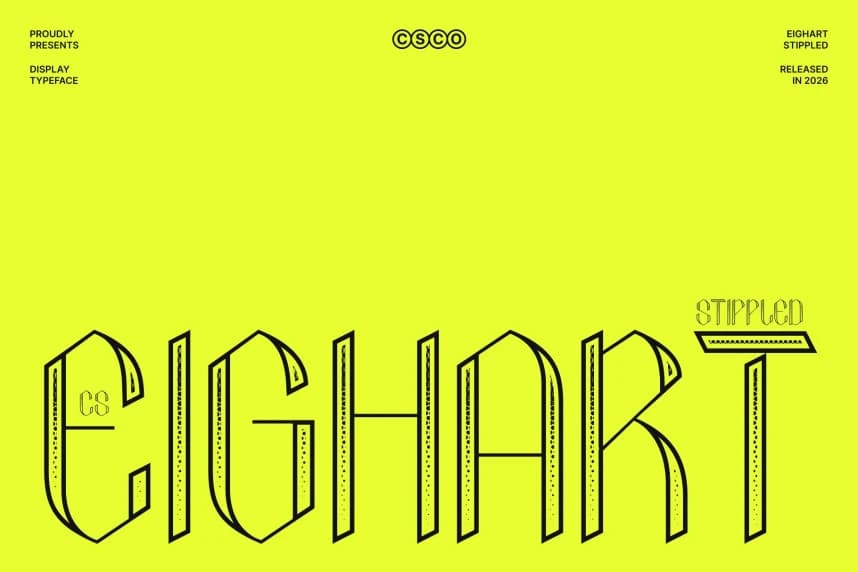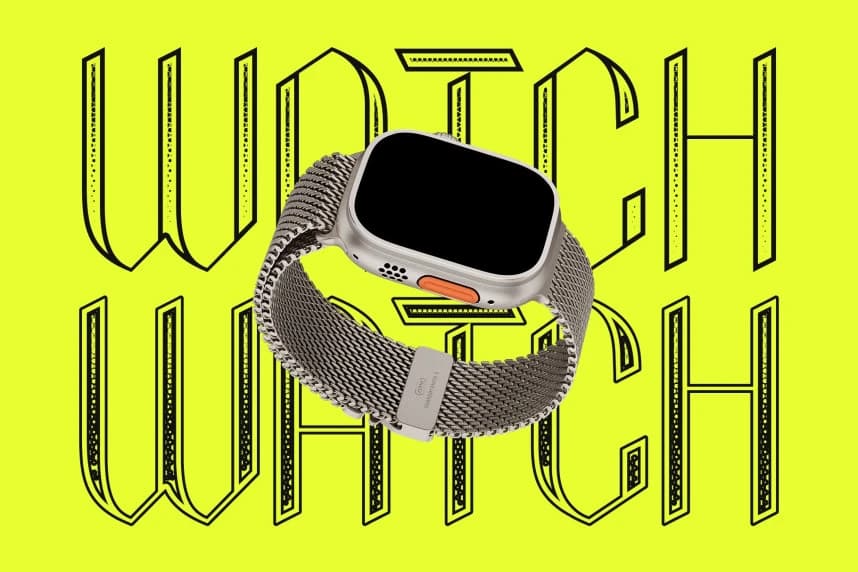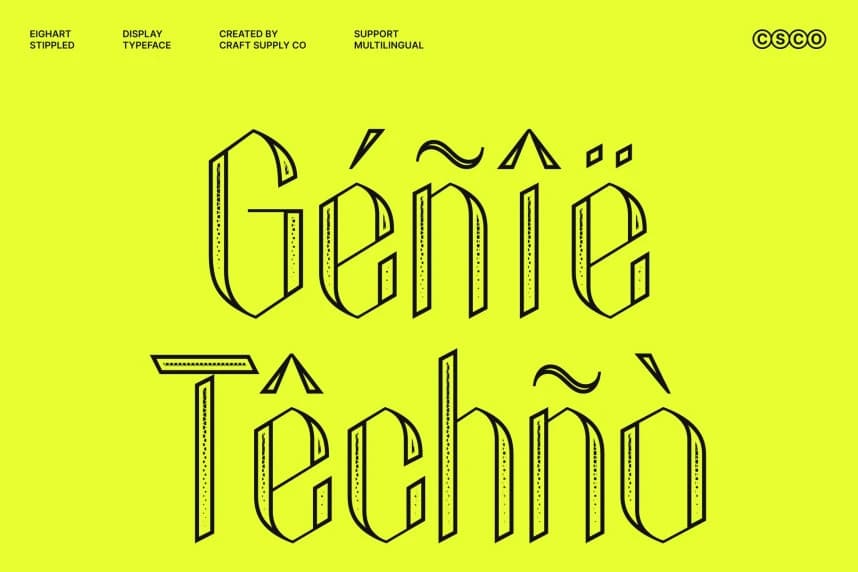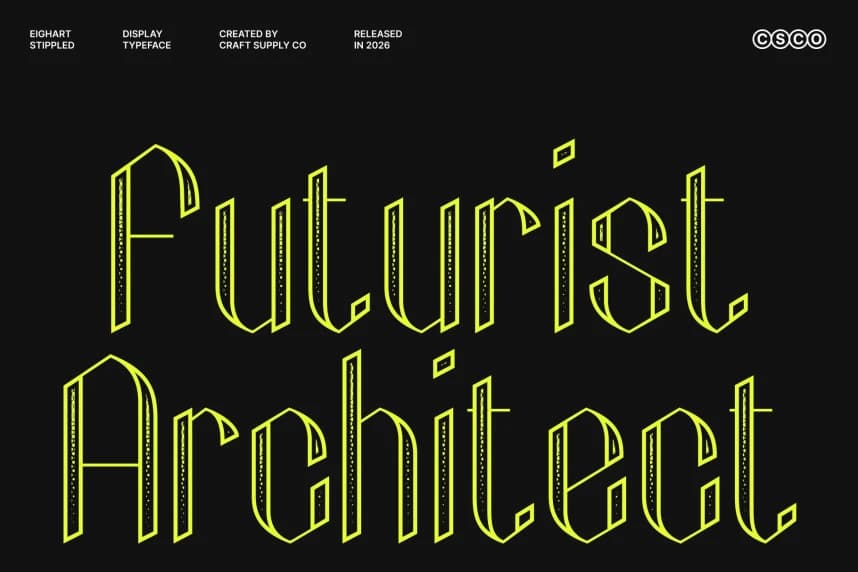
Eighart Stippled Font
Eighart Stippled Font – Futuristic Display Font with High-Contrast Texture Futuristic Elegance with Stippled Depth. This is a striking display font that merges futuristic aesthetics with bold high-contrast typography.